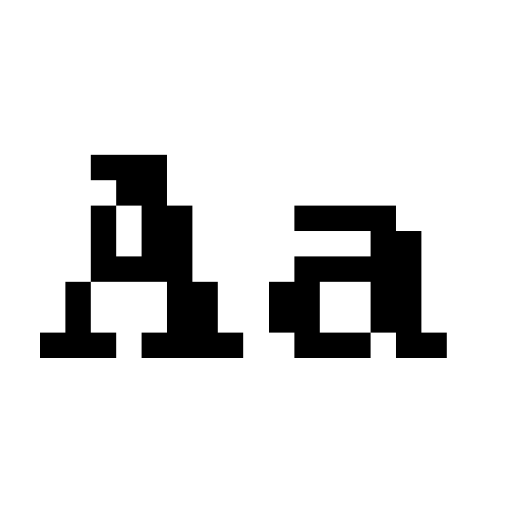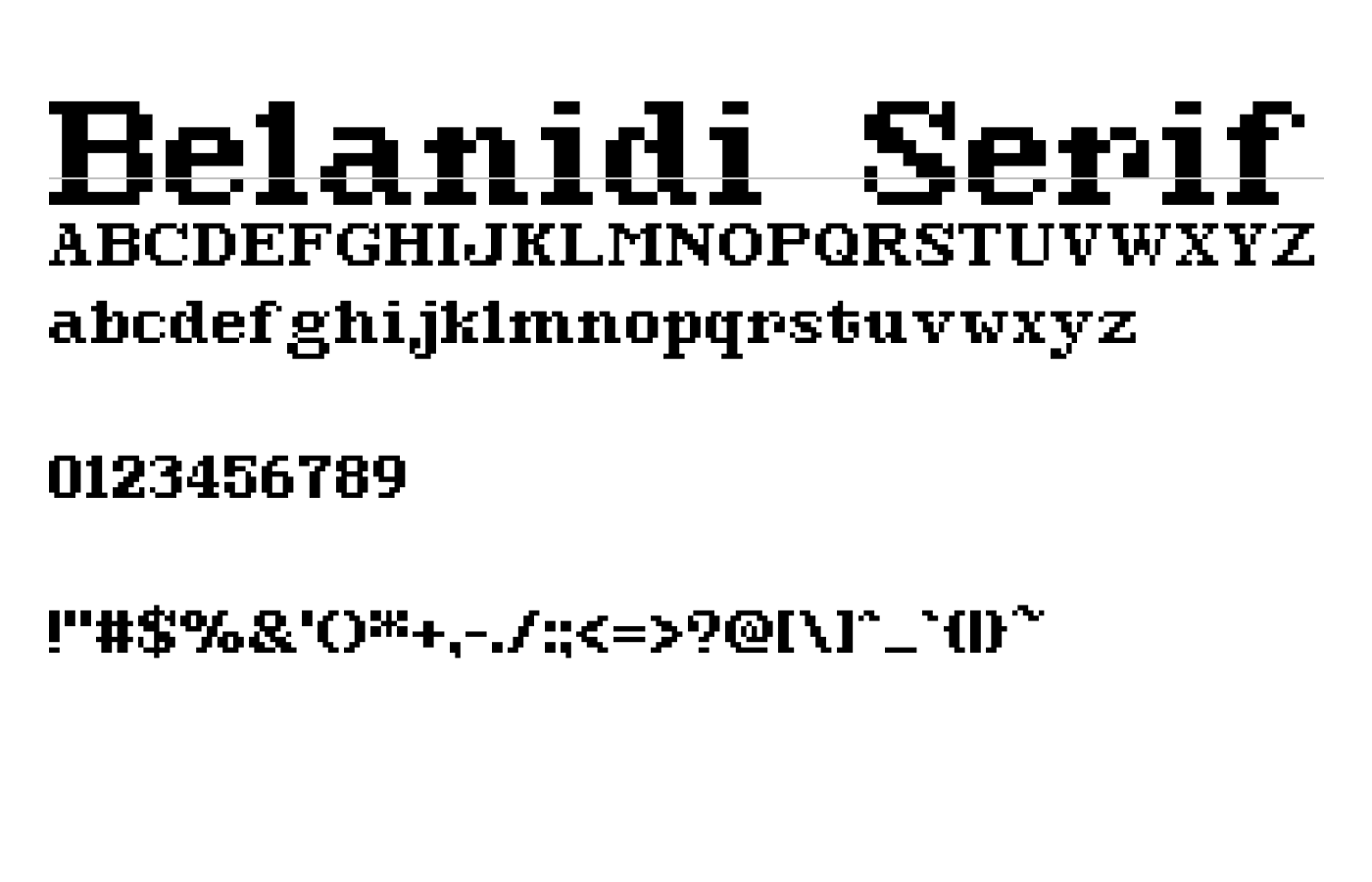
Belanidi Serif is a bold, slab-serif font with a distinctive pixelated, blocky style that gives it a digital, retro feel. Its strong, geometric shapes and uniform weight make it perfect for creating impactful headlines or logos that evoke a vintage computer or arcade game aesthetic. This font works best in creative projects or branding where a nostalgic yet modern edge is desired.
Belanidi Serif Font
About Belanidi Serif Font